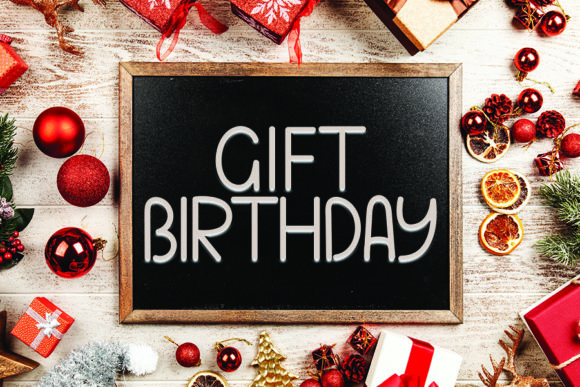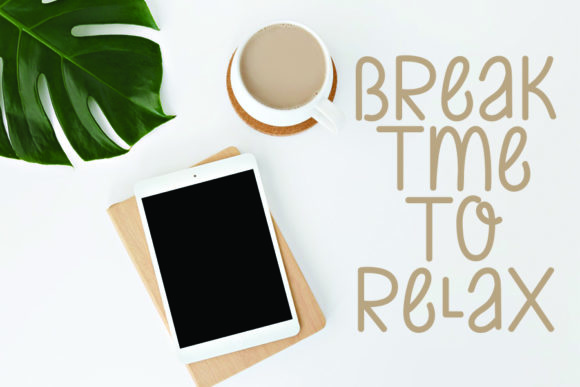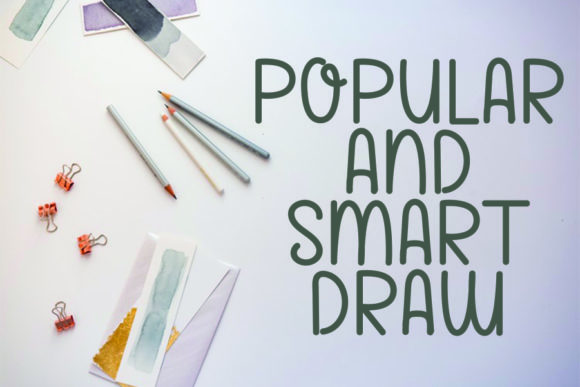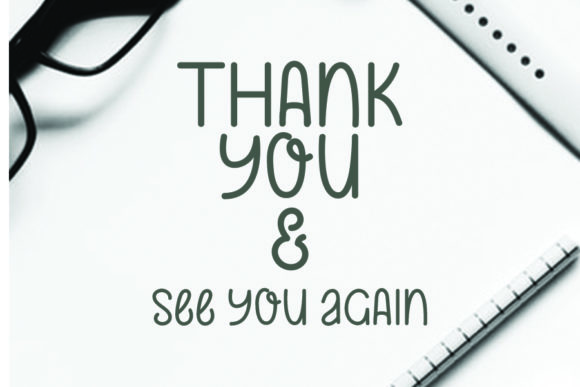
Introducing Handcraft Font: The Perfect Blend of Simplicity and Versatility
Are you a designer, crafter, or DIY enthusiast looking for a font that can elevate your creative projects? Look no further than Handcraft, a simple and casual handcraft font that’s taking the design world by storm. With its incredibly versatile style, Handcraft Font is the perfect choice for creating spectacular designs that showcase your unique personality and style.
The Story Behind Handcraft Font
Handcraft Font is a carefully crafted typeface that’s designed to evoke a sense of warmth, comfort, and approachability. Its simple and casual design makes it perfect for a wide range of applications, from crafting and DIY projects to branding and marketing materials. Whether you’re creating a logo, a brochure, or a social media post, Handcraft Font is the perfect choice for adding a personal touch to your designs.
What Makes Handcraft Font So Special?
So, what sets Handcraft Font apart from other fonts out there? Here are just a few reasons why designers and crafters are falling in love with this amazing typeface:
- Versatility: Handcraft Font is incredibly versatile, making it perfect for a wide range of applications and design styles. Whether you’re creating a bold and playful design or a more subtle and sophisticated one, Handcraft Font can adapt to any style or theme.
- Readability: Despite its casual design, Handcraft Font is highly readable, even at small sizes. This makes it perfect for body text, captions, and other applications where legibility is key.
- Uniqueness: Handcraft Font has a unique and distinctive style that’s sure to set your designs apart from the crowd. Its handcrafted look and feel add a personal touch to any design, making it perfect for crafters, DIY enthusiasts, and anyone looking to add a bit of personality to their work.
How to Use Handcraft Font in Your Designs
Now that you know a bit more about Handcraft Font, let’s talk about how to use it in your designs. Here are a few tips and ideas to get you started:
- Pair it with bold colors: Handcraft Font looks amazing paired with bold, bright colors. Try pairing it with a bold red or blue to create a fun and playful design.
- Use it for headings and titles: Handcraft Font is perfect for headings and titles, where its unique style and personality can really shine.
- Experiment with different sizes: Handcraft Font is highly legible, even at small sizes. Experiment with different sizes and see how it looks in different contexts.
Tips for Crafters and DIY Enthusiasts
If you’re a crafter or DIY enthusiast, you’re probably always on the lookout for new and creative ways to add personality to your projects. Here are a few tips for using Handcraft Font in your crafting and DIY projects:
- Use it for journaling: Handcraft Font is perfect for journaling and writing in your scrapbook or diary. Its casual, handwritten style adds a personal touch to any entry.
- Add it to your crafts: Whether you’re making cards, gift tags, or other crafts, Handcraft Font is a great way to add a personal touch to your work.
- Experiment with different materials: Handcraft Font looks amazing on a variety of materials, from paper and cardstock to fabric and wood. Experiment with different materials and see how it looks!
In conclusion, Handcraft Font is a simple and casual handcraft font that’s perfect for designers, crafters, and DIY enthusiasts. Its incredibly versatile style, readability, and uniqueness make it a great choice for a wide range of applications and design styles. Whether you’re creating a logo, a brochure, or a crafting project, Handcraft Font is the perfect choice for adding a personal touch to your designs. So why wait? Fall in love with Handcraft Font today and start creating spectacular designs that showcase your unique personality and style!